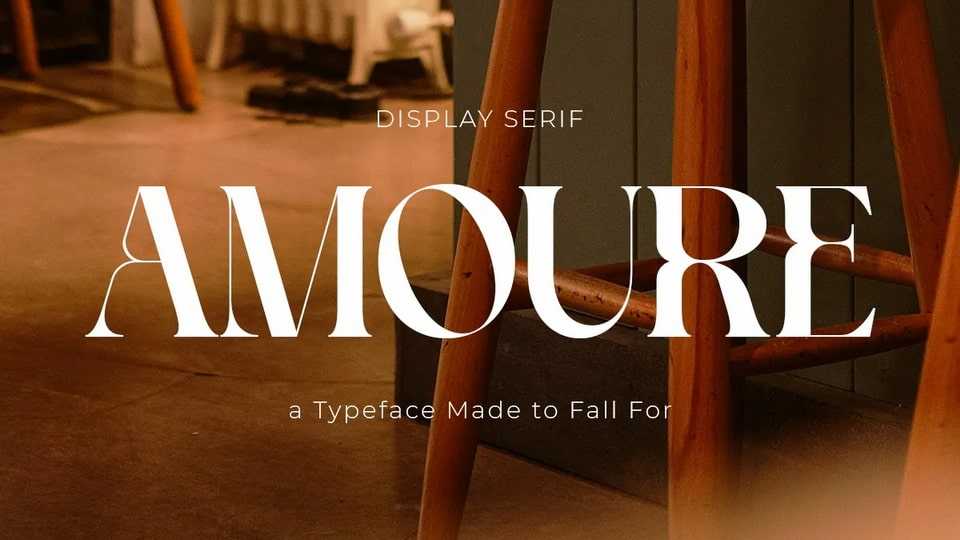
Download Amoure font, a high-contrast display serif typeface that radiates elegance, sophistication, and romantic charm, inspired by fashion editorials and timeless love stories.